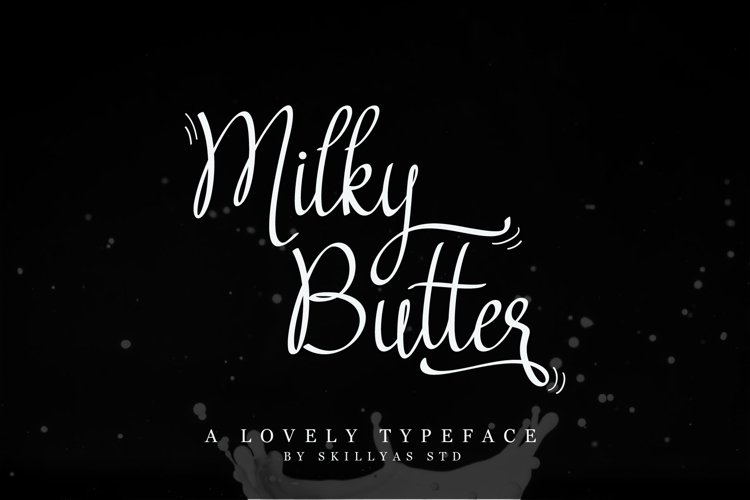
Milky Butter is a flowing handwritten font, described by an elegant touch, perfect for your favorite projects. Fall in love with its incredibly distinct and timeless style and use it to create spectacular designs!
- Stylistic Alternates and swash
- Uppercase and Lowercase letters
- Numbering and Punctuations